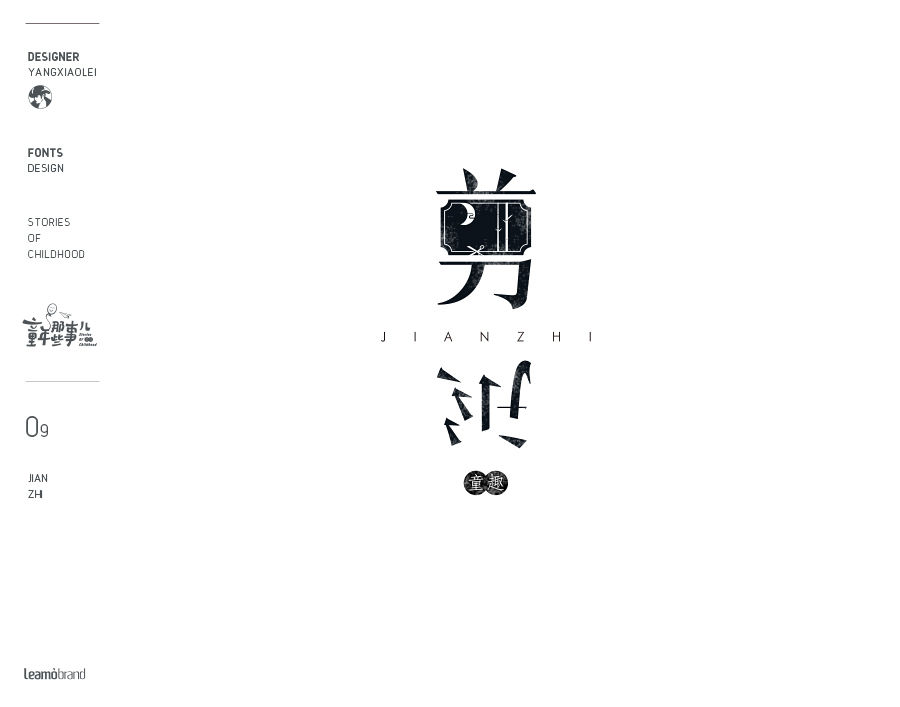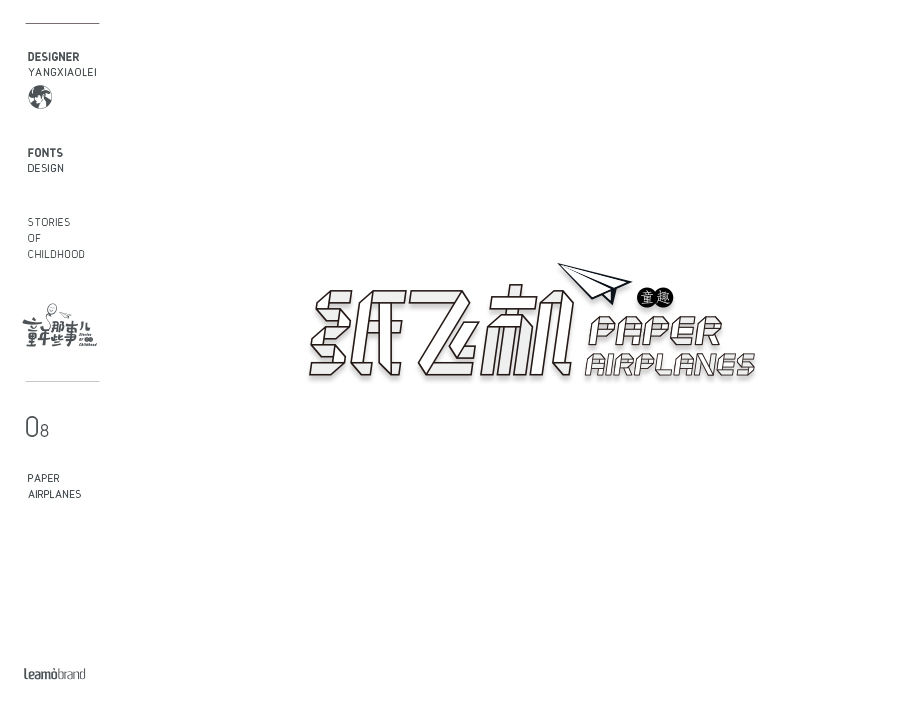
Fonts Design of Childhood Memory
Childhood was colorful but wasted. We did not have iPhone, PC or Pad but we did have stars on the sky and happy games. A Chinese designer Coober designed a group of fonts based on Chinese Childhood games.